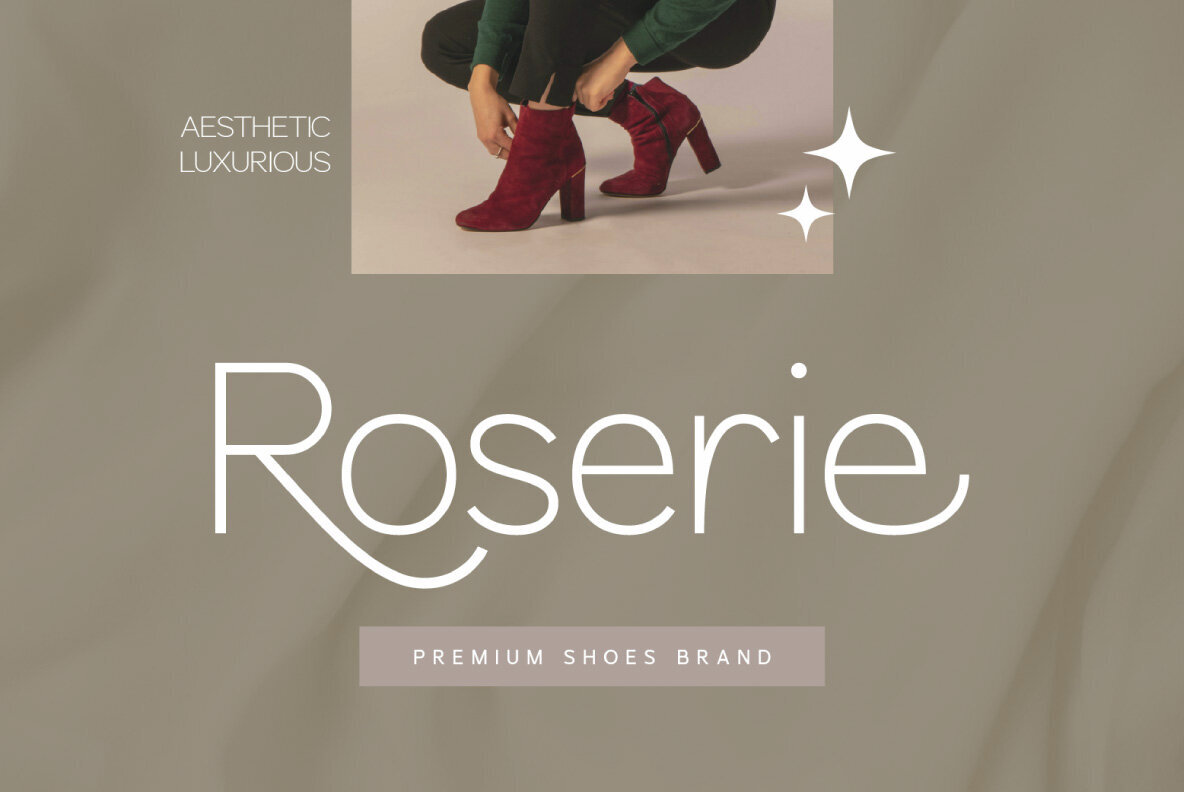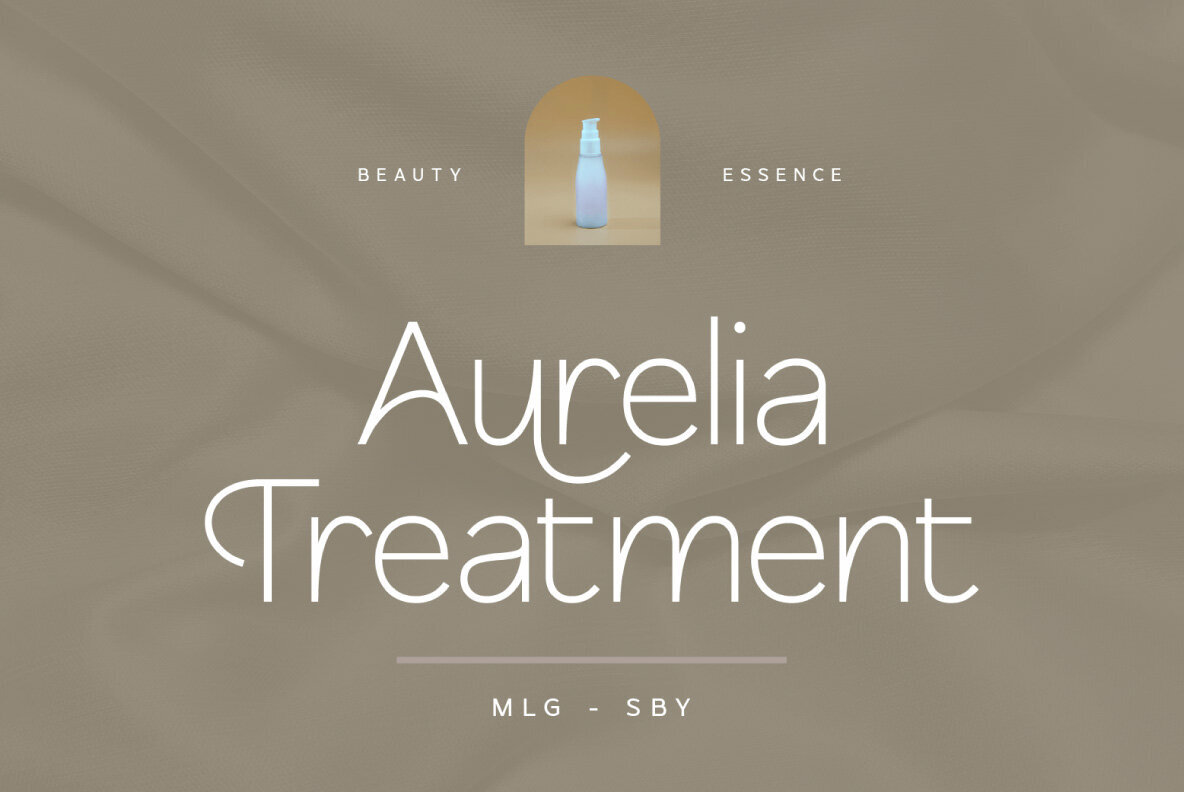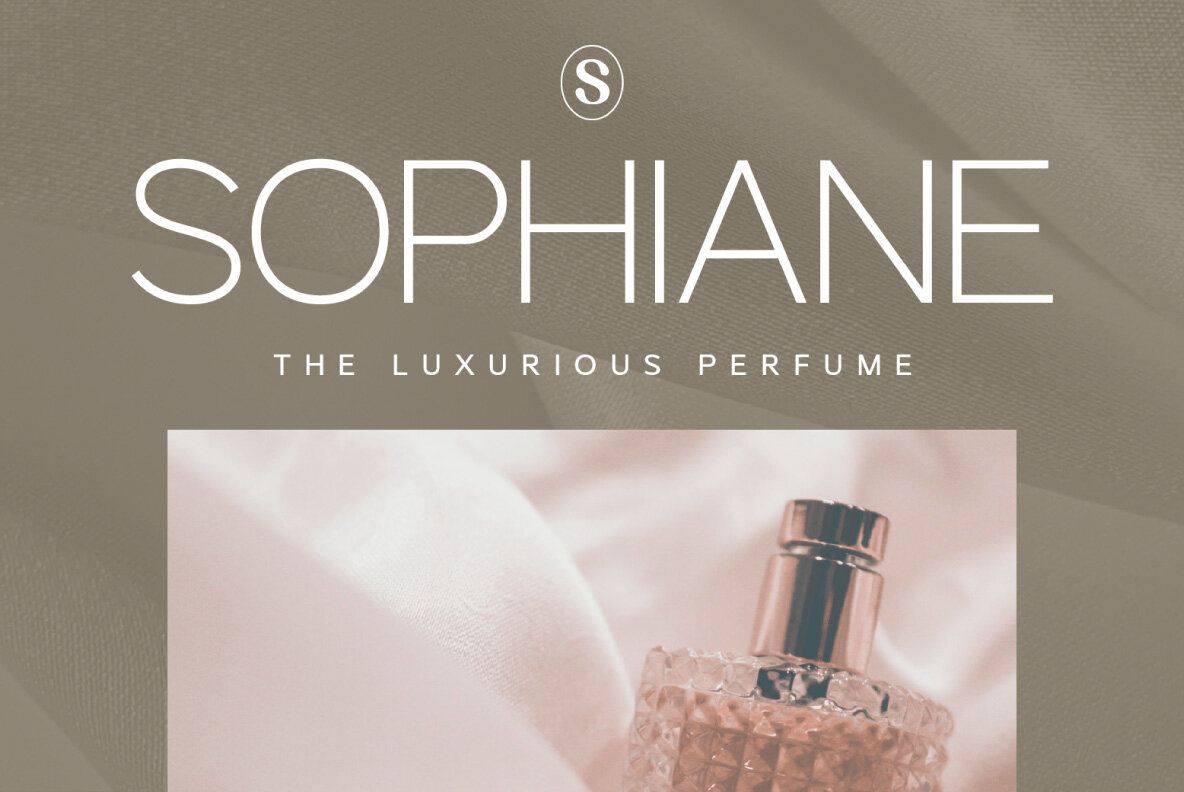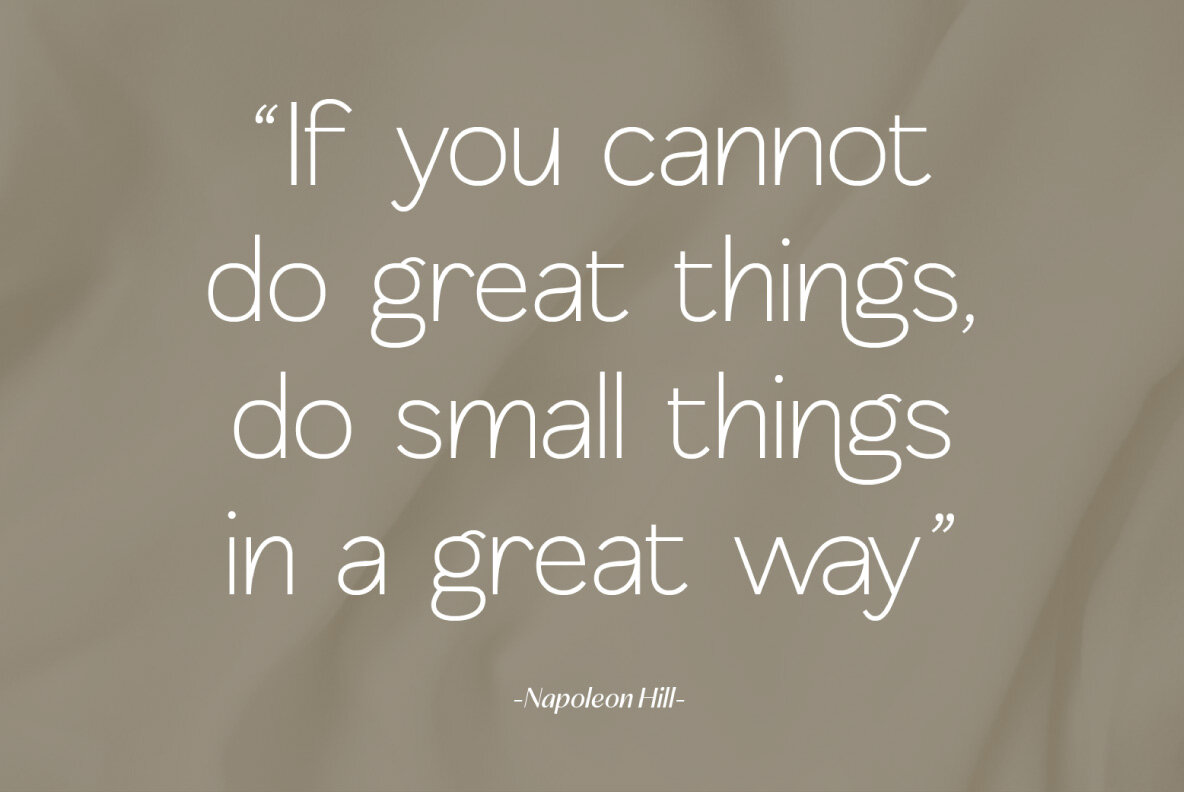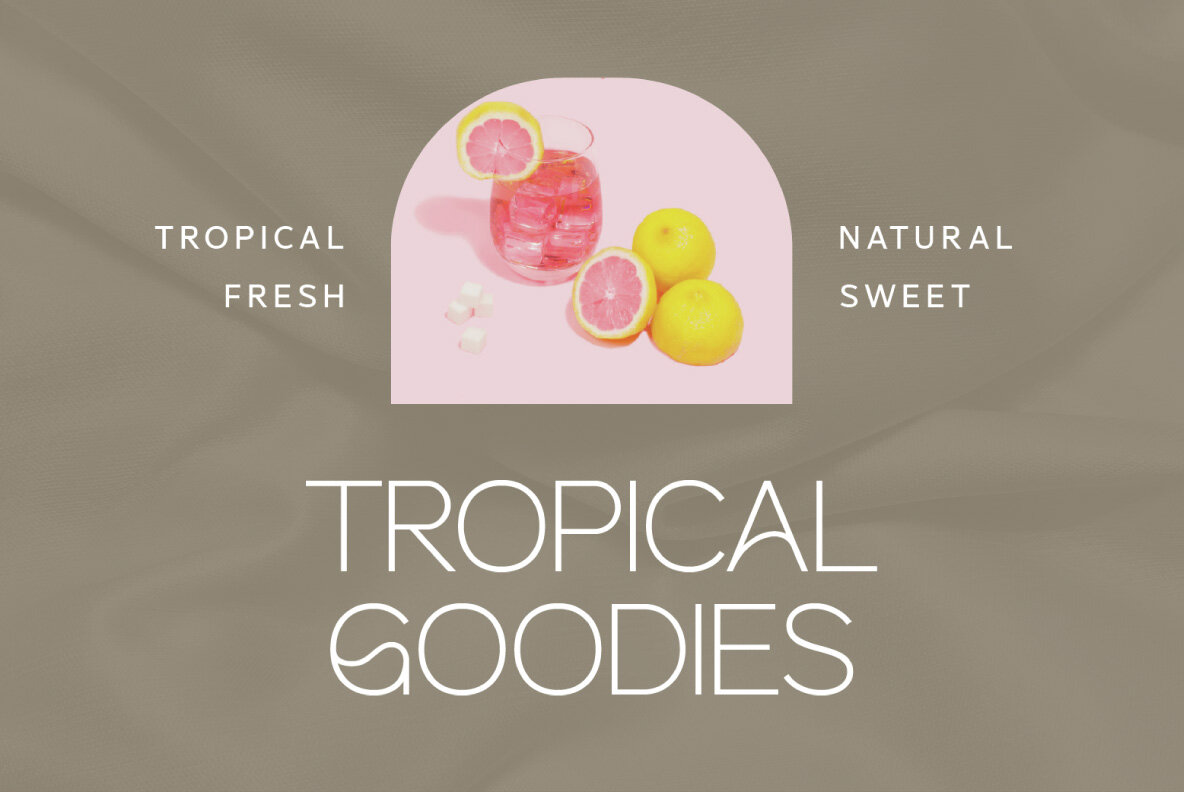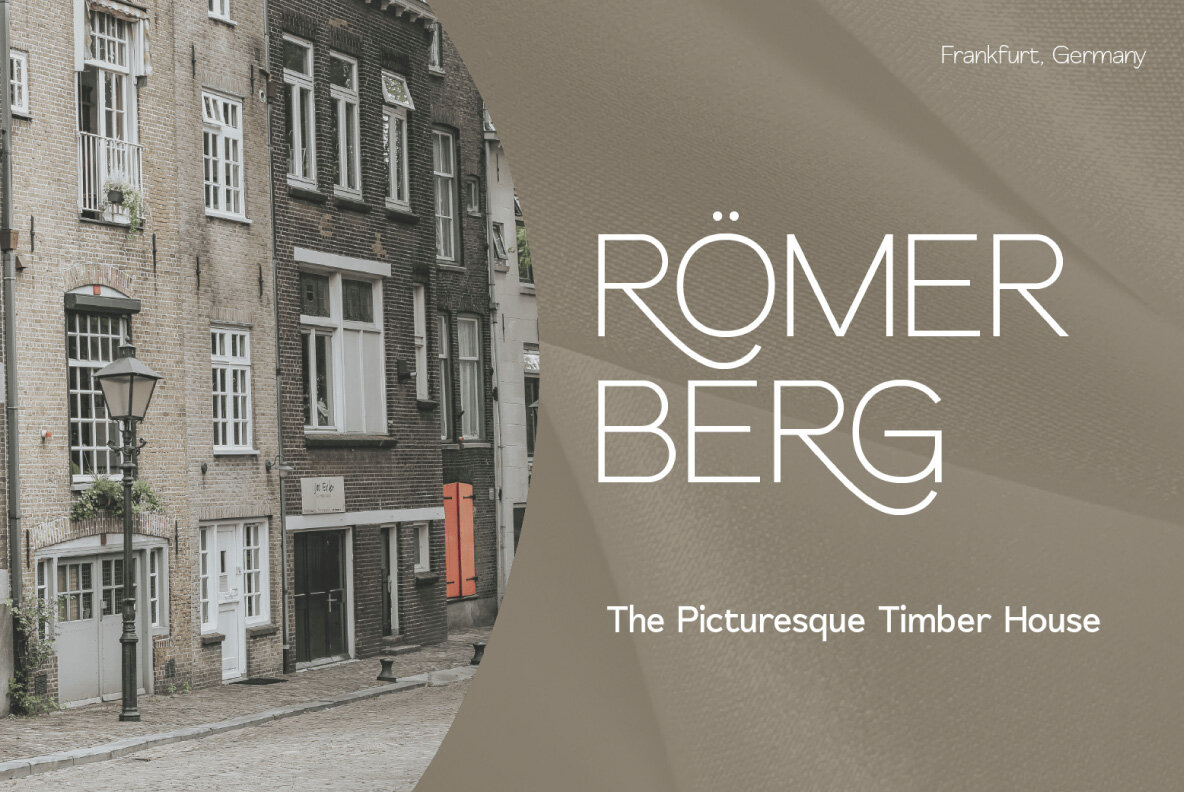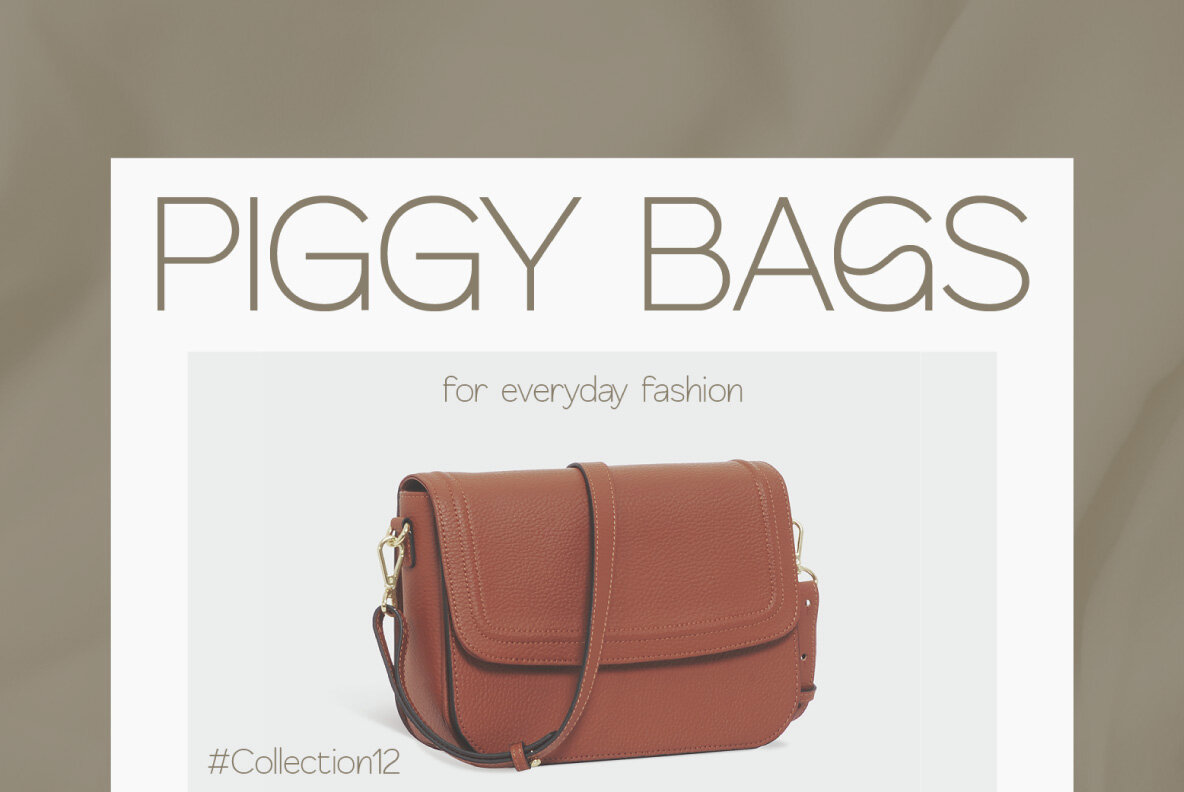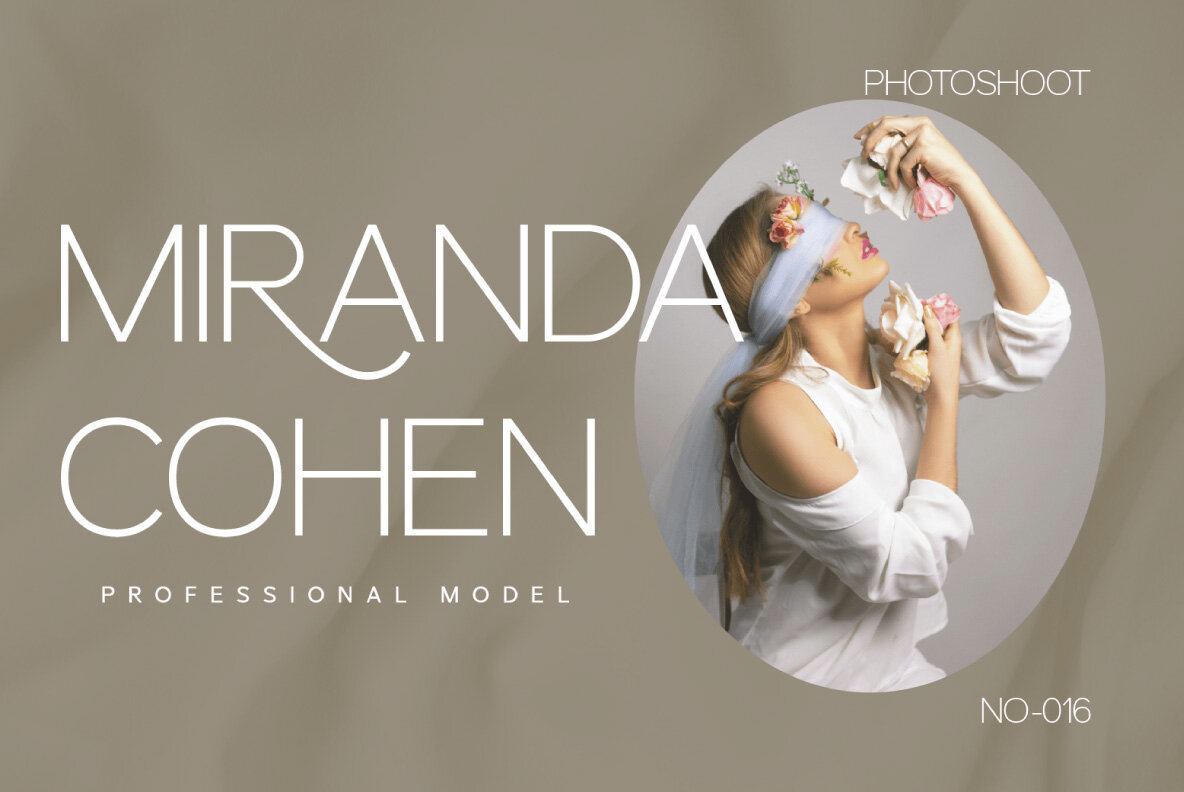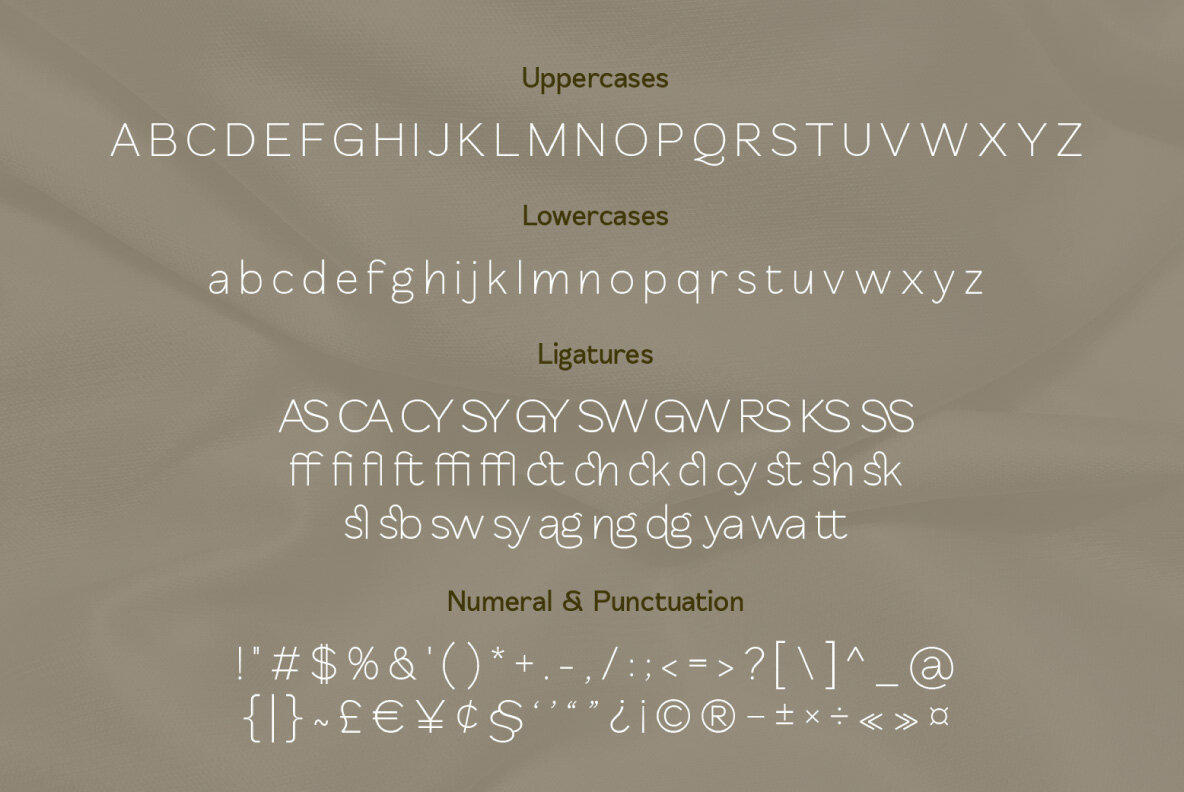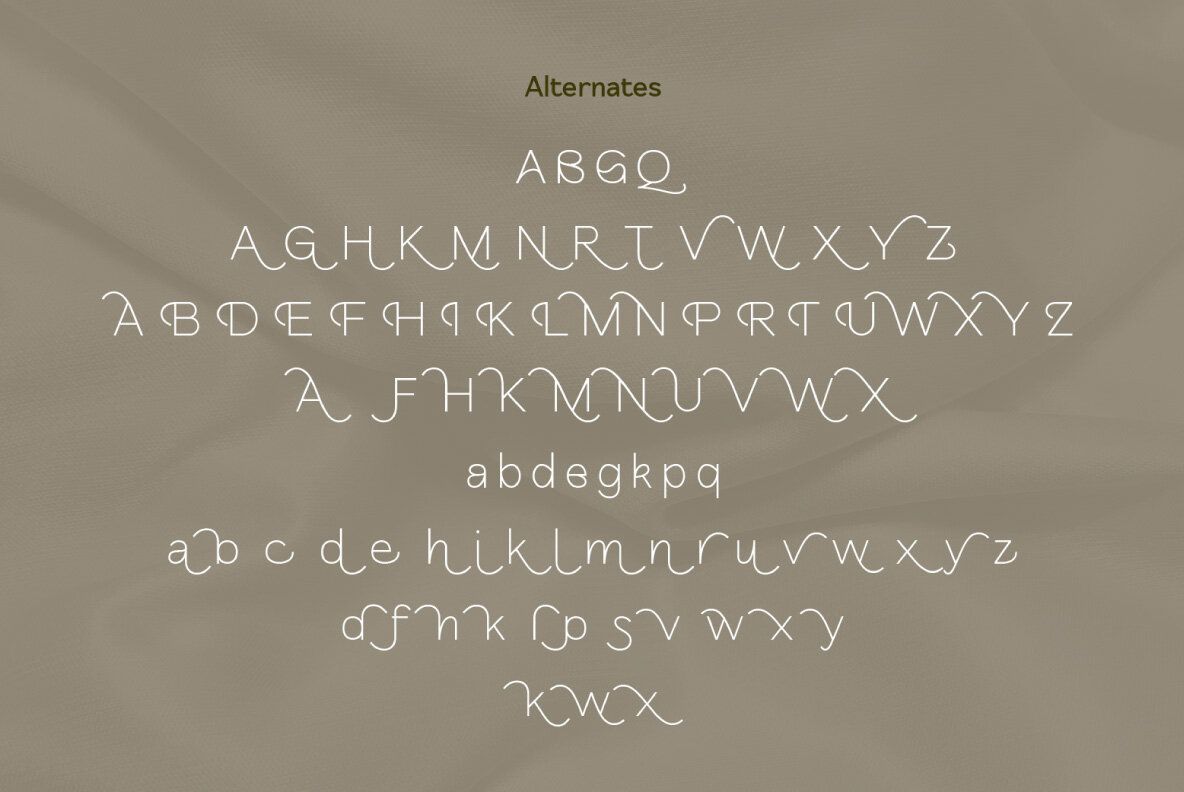
SS Baetrice Font
Baetrice Regular
Baetrice is a charming and playful sans serif font, ideal for a wide range of creative projects. Its elegant, feminine style makes it perfect for luxury logo branding, editorial layouts, sophisticated stationery, modern fashion elements, and eye-catching beauty salon promotions. Use Baetrice to enhance feminine advertising designs, craft engaging blog and website aesthetics, design captivating card invitations, produce inspiring art quotes, create tasteful home decor, and design distinctive book or cover titles. It's also an excellent choice for special event materials, such as wedding and birthday invitations.
Baetrice offers a comprehensive set of features to support your designs. It includes basic Latin A-Z and a-z characters, numbers, punctuation, and a vast selection of alternates and ligatures for added creativity. The OpenType features and PUA encoding facilitate versatility, while multilingual support broadens its usability across different languages. Dive into your next project with Baetrice and explore its design potential without restraint.